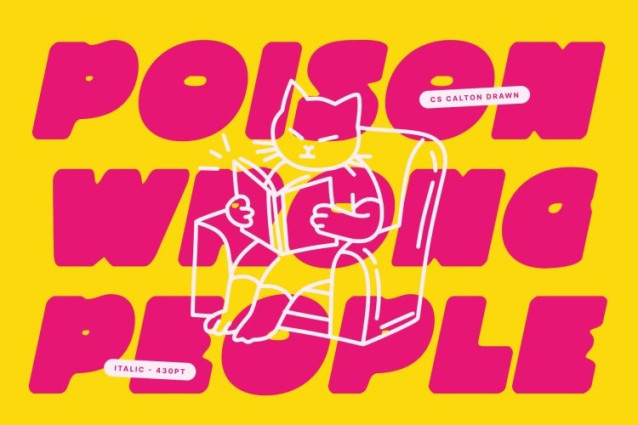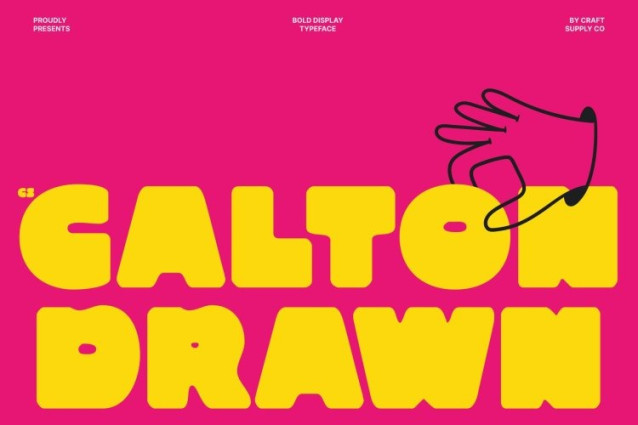
CS Calton Drawn Font
CS Calton Drawn Font This is a bold display sans serif font designed to deliver instant visual authority. Built with powerful strokes and confident letterforms, it creates a commanding presence that stands out in any composition. The drawn texture adds subtle character, giving the font a handcrafted edge without sacrificing its modern, assertive structure.
Expressive Character with Modern Simplicity
While strong and impactful, this font maintains clean geometry and balanced proportions. This combination results in a font that feels professional yet expressive, allowing it to communicate strength without appearing aggressive. Its clarity and structure ensure your message remains bold, readable, and visually engaging.
Perfect for Branding and Visual Identity
Designed for brands that want to be noticed, this font brings confidence and consistency to visual identities. It works exceptionally well for logos, packaging, advertising, and promotional materials, helping brands project strength, reliability, and contemporary style across all media.
Ideal for Headlines, Posters, and Statement Designs
From editorial headlines and posters to signage and digital displays, this font excels in high-impact environments. Its fearless weight and refined execution make it the perfect choice for designers seeking modern typography that feels powerful, confident, and full of energy.